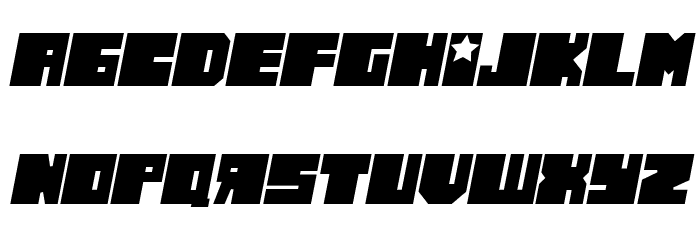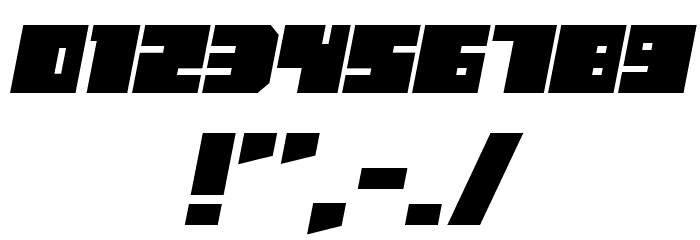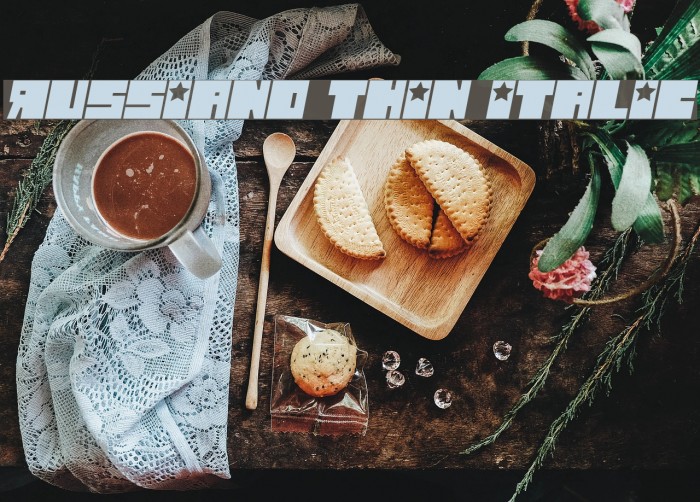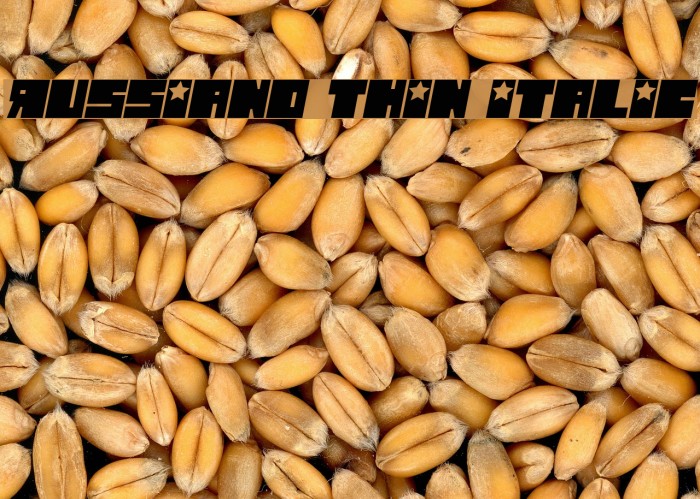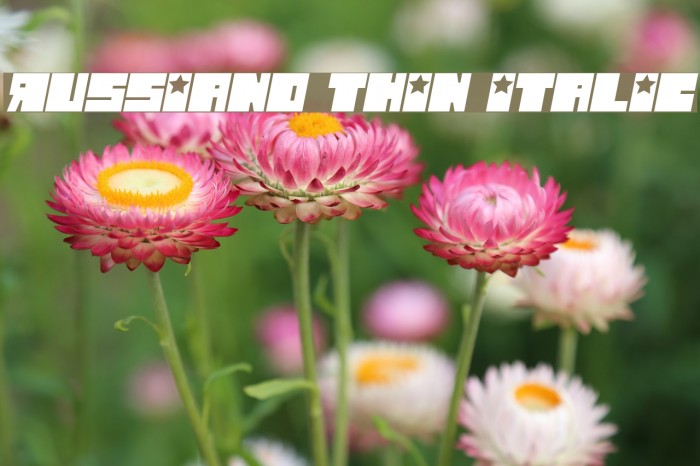
Russiano Thin Italic Font
This font features a bold, geometric design with a distinctively modern and industrial feel. The characters are blocky and angular, with sharp edges and a solid presence. The uppercase letters are particularly striking, with some incorporating unique elements like stars. The numbers and special characters maintain the same bold and angular style, ensuring consistency across all glyphs. This font is designed to make a strong visual impact, suitable for attention-grabbing headlines or logos.
- Proposed Projects: Ideal for use in branding, posters, and any project requiring a strong, impactful typeface.